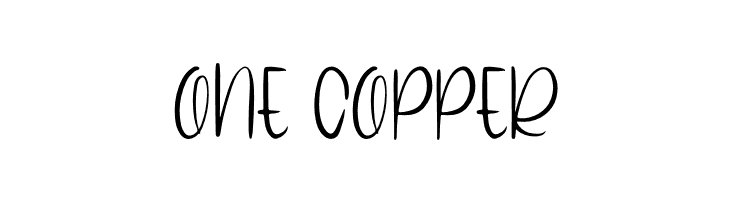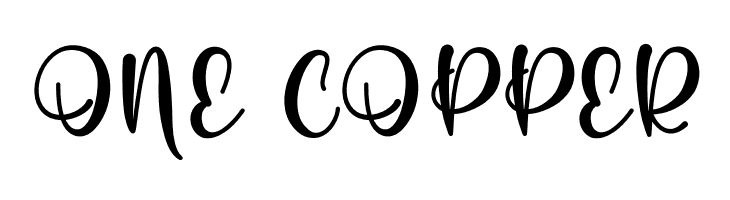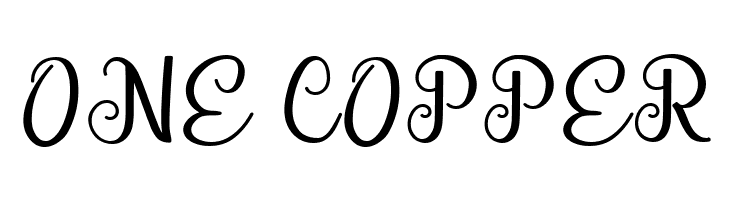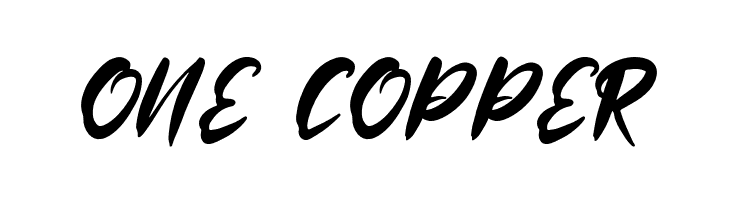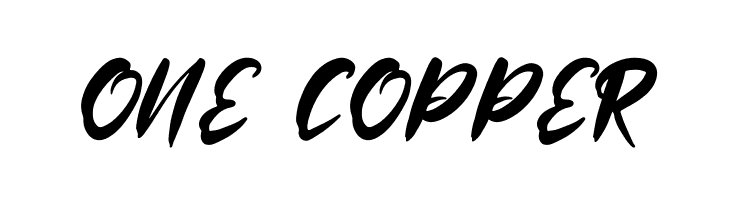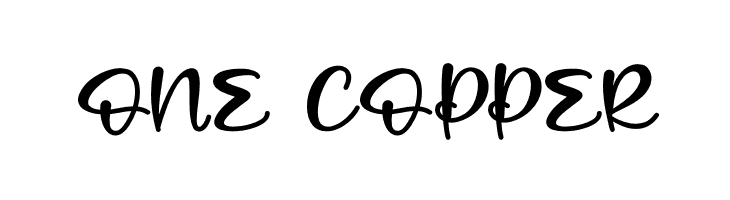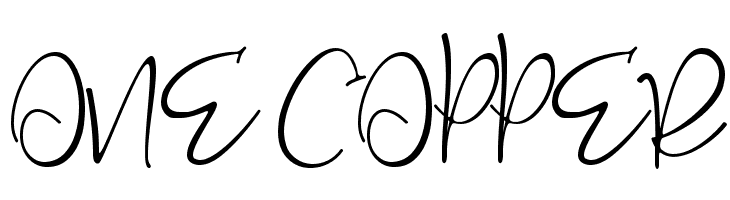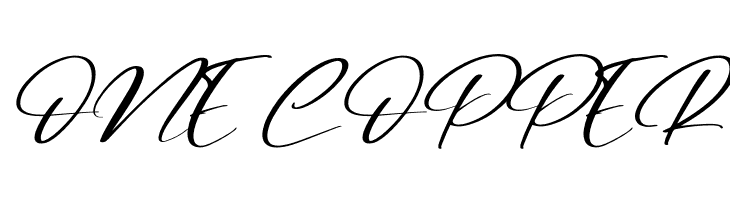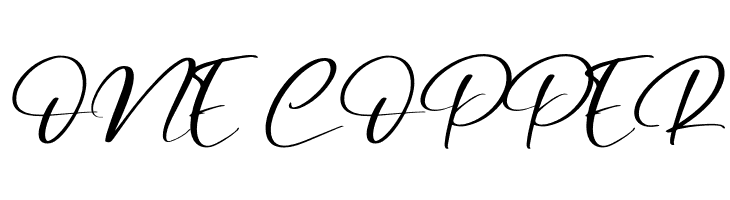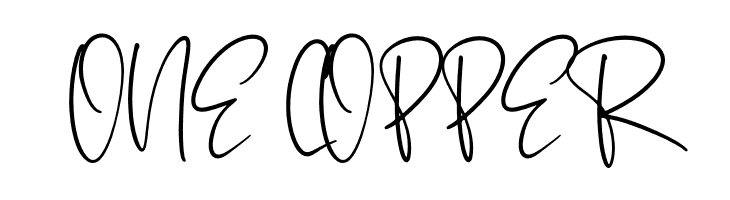
A playful and elegant script font with a handwritten style.
A playful, hand-drawn font with rounded, informal letterforms.
An elegant, flowing script font with smooth, cursive lines and graceful curves.
An elegant, flowing script font with smooth, cursive strokes and graceful curves.
A bold, expressive script font with dynamic strokes and elegant curves.
A bold, expressive script font with a brush-like texture and dynamic style.
A decorative font with characters embedded in rooster silhouettes.
A modern, italic sans-serif font with clean lines and a dynamic appearance.
A modern, clean sans-serif font with excellent readability and uniform stroke weight.
A bold, modern font with strong, uniform strokes and a geometric structure.
A playful and elegant script font with flowing, cursive letterforms.
A modern, elegant script font with flowing, cursive strokes and dynamic contrast.
A modern, flowing script font with elegant, interconnected letters.
A lively handwritten font with fluid, dynamic strokes and a modern artistic flair.
A playful, handwritten font with smooth, flowing lines and a casual style.
A lively, handwritten cursive font with a dynamic and expressive style.
A playful, modern handwritten font with medium contrast and dynamic slant.
An elegant script font with flowing, cursive letterforms and sophisticated flourishes.
An elegant script font with flowing, decorative flourishes and a romantic style.
A playful and casual handwritten font with fluid strokes and a dynamic style.
A playful and elegant script font with smooth, flowing characters.
A modern, elegant script font with flowing cursive letters and stylish flourishes.
A lively, cursive font with flowing, interconnected letters and a calligraphic style.
An elegant, cursive handwritten font with flowing, interconnected strokes.
A modern, handwritten font with elegant, flowing lines and a personal touch.
A bold, narrow font with a modern, uniform design.
A lively and expressive handwritten font with fluid, dynamic strokes.
A modern, elegant handwritten font with fluid strokes and a dynamic slant.
A stylish, handwritten font with elegant, flowing lines and a modern touch.
A modern, elegant handwritten font with fluid, cursive strokes.
A dynamic and expressive cursive script font with medium contrast.
Decorative serif font with festive, high-contrast strokes and ornamental details.
Ornate, monogram-inspired font with royal and decorative elements.
An elegant, cursive font with fluid strokes and a sophisticated style.